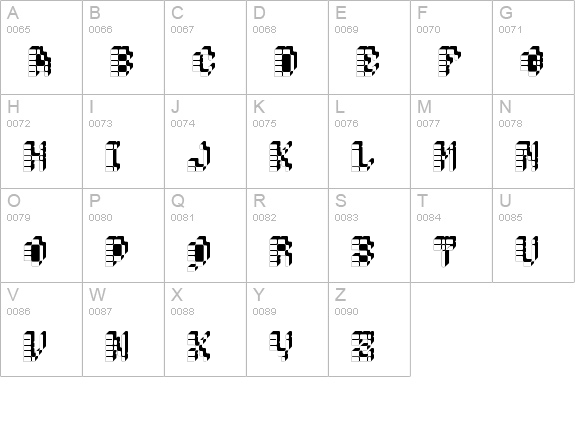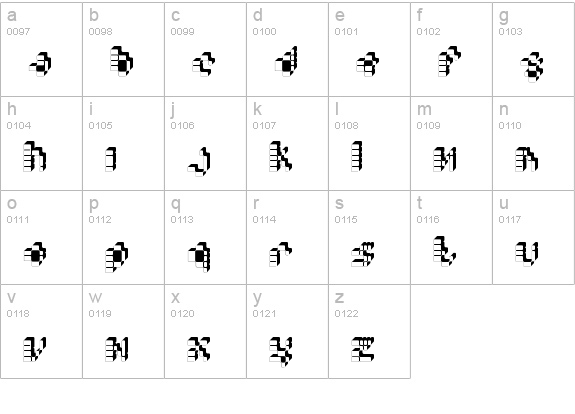
HypercellHelix Font Details
HypercellHelix font is a stunning display typeface that exudes a futuristic and sleek aesthetic. Its intricate design features sharp angles and geometric shapes, giving it a modern and edgy look. Perfect for creating eye-catching headlines, logos, and posters, this font is sure to make a bold statement in any design project. What makes HypercellHelix even more appealing is that it is available for free download at FontsMarket.com. This means that you can easily access this unique font and incorporate it into your work without any cost. Whether you are a designer, a student, or anyone looking to add a contemporary touch to their projects, HypercellHelix is a fantastic choice that won't break the bank. Don't miss out on the opportunity to enhance your designs with HypercellHelix font. Download it for free today at FontsMarket.com and let your creativity soar with this cutting-edge typeface.